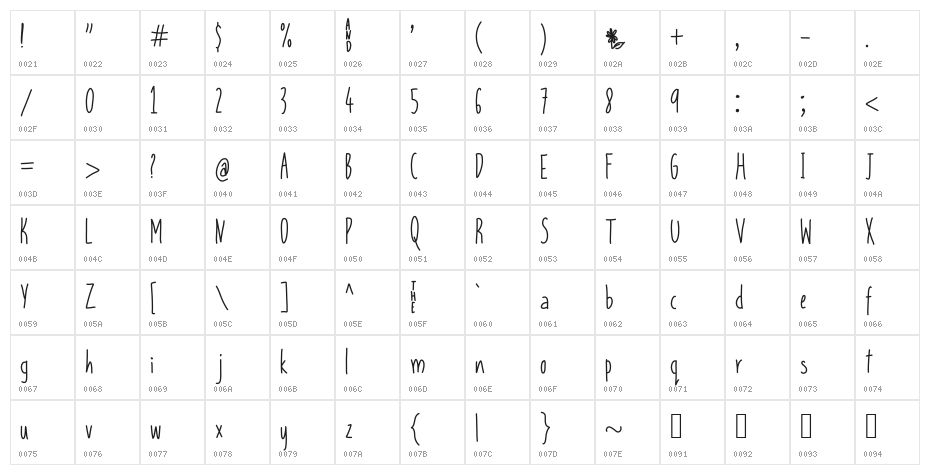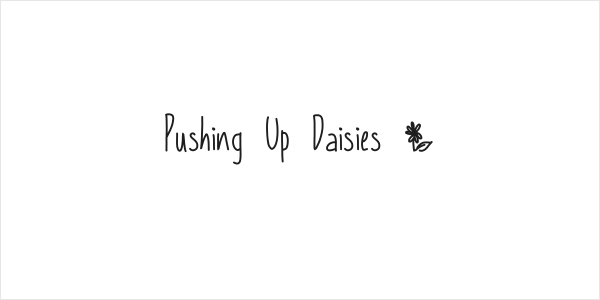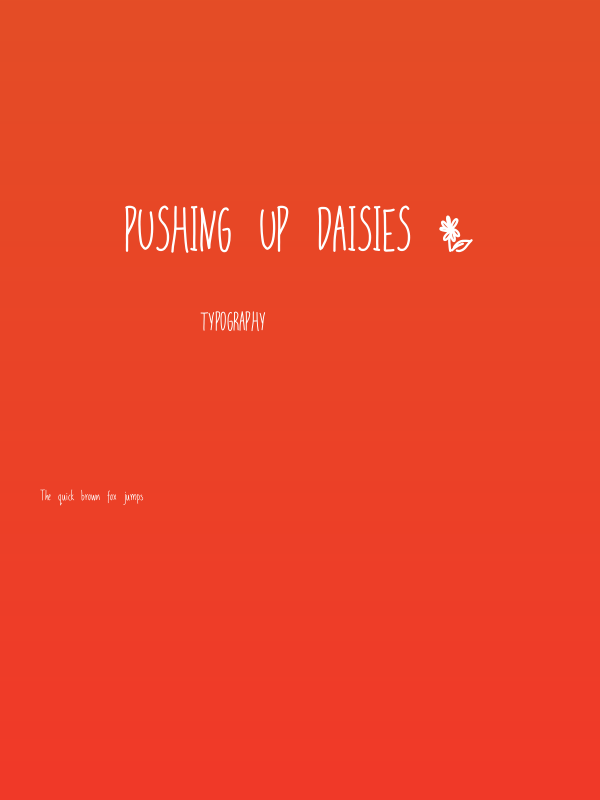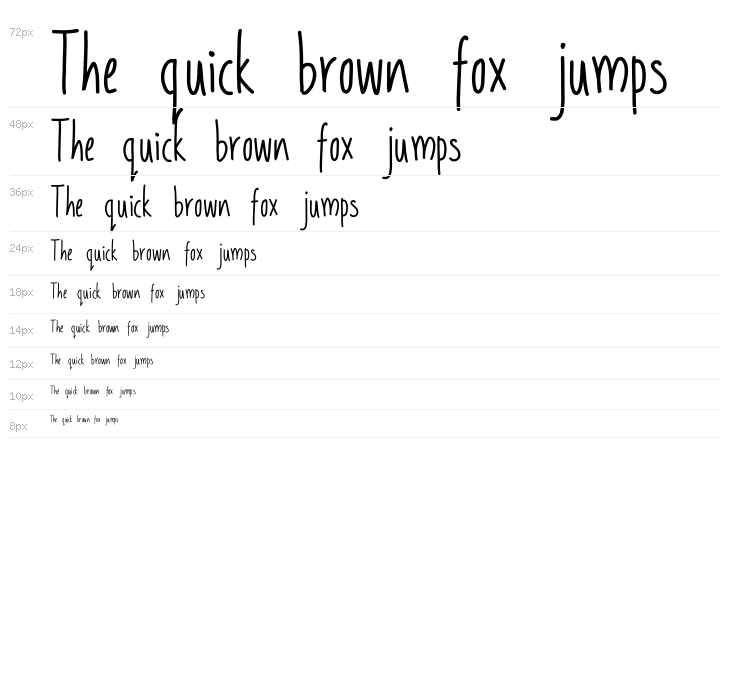
Pushing Up Daisies * Font
Pushing Up Daisies * Description
This font features a playful and whimsical handwritten style, characterized by its tall, narrow letters and slightly irregular strokes that give it a casual, friendly appearance. The uppercase letters are consistent in height, while the lowercase letters have a charming, uneven baseline, adding to the font's informal aesthetic. The numbers and special characters maintain the same playful quality, with unique touches like a flower symbol. This font's overall design is approachable and fun, making it suitable for projects that require a personal touch.
| Overall Style | Whimsical |
| Proposed Projects | Ideal for greeting cards, children's books, playful branding, and informal invitations. |